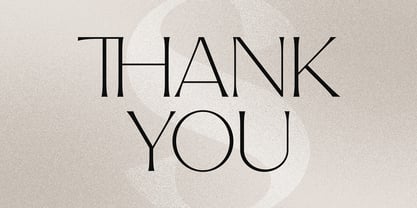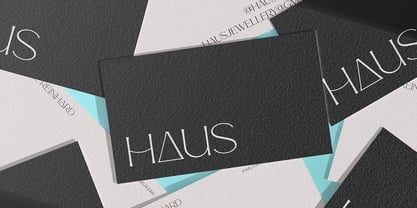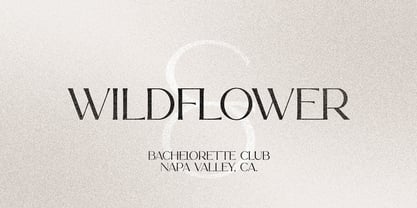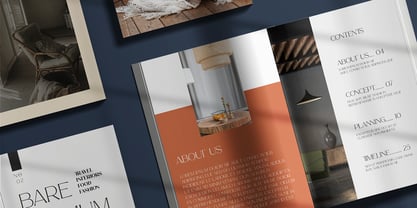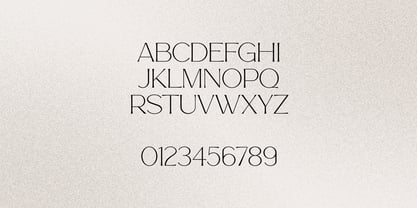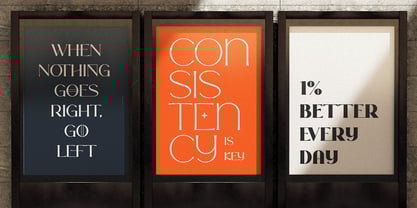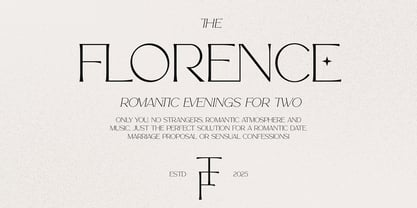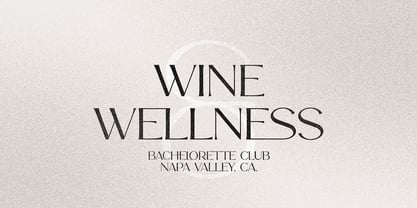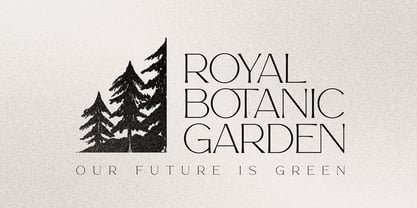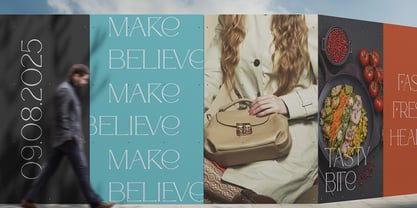
Noble Type
by VP Creative Shop
The Noble Type Font Family was designed by Vladimir Fedotov, Plamen Petrov and published by VP Creative Shop. Noble Type contains 18 styles and family package options.
Introducing Noble Type, a versatile and elegant font family perfect for modern design projects. Featuring 9 weights with matching italics, this typeface supports 87 languages, complete with ligatures and alternate glyphs for creative flexibility. Ideal for branding, editorial layouts, packaging, and digital design, Noble Type combines sophistication with functionality. Elevate your designs with this timeless font!
Designers: Vladimir Fedotov, Plamen Petrov
Publisher: VP Creative Shop
Foundry: VP Creative Shop